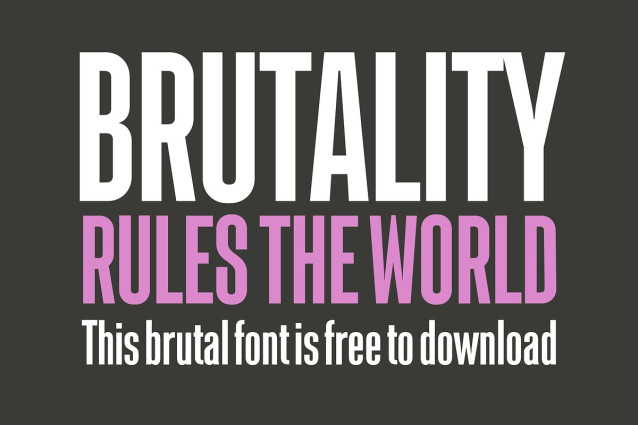
Linton Font
Linton Font – the ultimate font that you need! This typeface strikes the perfect balance between bold and elegant light, making it a must-have for your design projects! With three weights — bold, regular, light and thin — it’s incredibly versatile and guaranteed to deliver a powerful message, whether you’re crafting headlines or casual text. Linton is not just practical and straightforward; it’s a timeless classic that always rises to the occasion, whether it’s taking center stage or playing a vital supporting role. Transform your projects with Linton and make your designs truly unforgettable! You can’t afford to miss this! It’s a stunning attention-grabber!